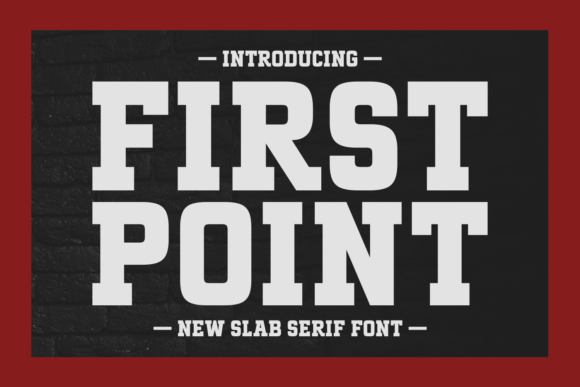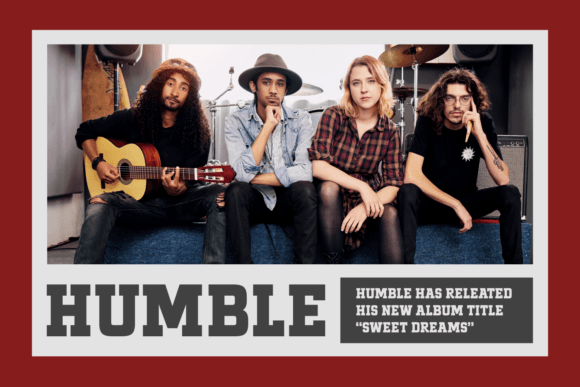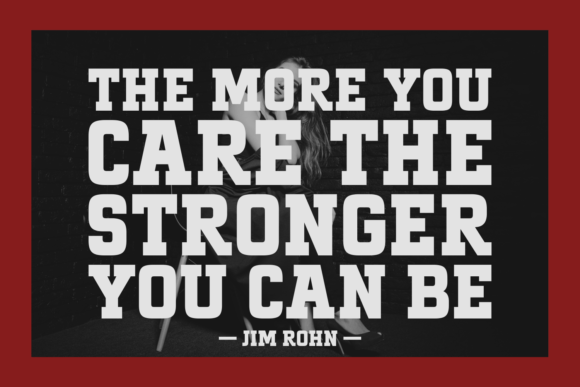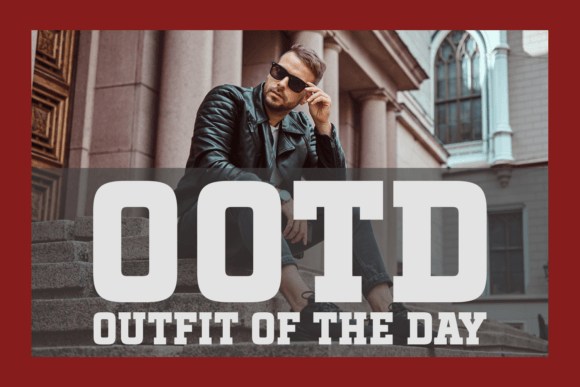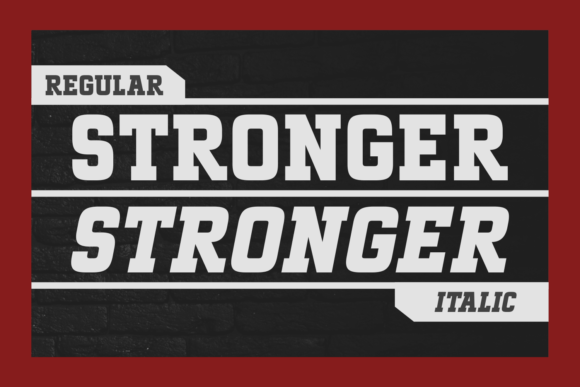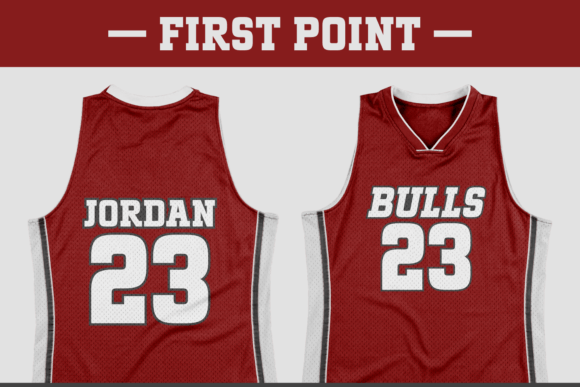
First Point Font
About First Point Font
First Point is a stylish and modern slab serif font that combines classic elegance with contemporary flair. Its distinct serifs create a strong visual presence, making it perfect for headlines, logos, and bold statements. With clean lines and a balanced structure, First Point delivers excellent readability in both print and digital media, making it an excellent choice for various design projects. Whether you’re looking for sophistication or a touch of nostalgia, First Point is sure to leave a lasting impression.